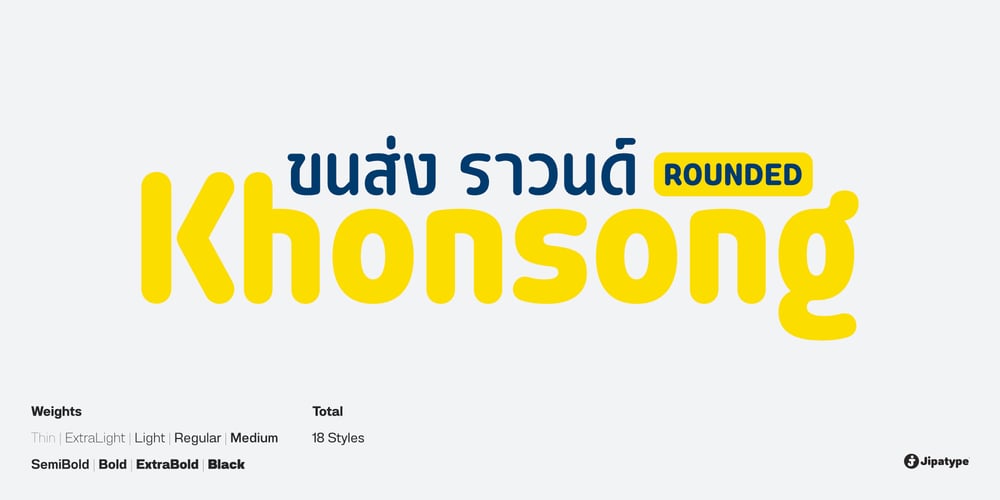
Khonsong Rounded
Khonsong Rounded font
Khonsong Rounded Font Family was designed by Anupap Jaichumnan and published by Jipatype. Khonsong Rounded contains 18 styles and family package options. Introducing “Khonsong Rounded” a rounded semi-condensed sans serif font that embodies a harmonious blend of modernity, futurism and softness. With its sleek and contemporary appearance, Its semi-condensed proportions strike a perfect balance between space-saving efficiency and legibility, making it an ideal choice for various applications, from online media to print media.